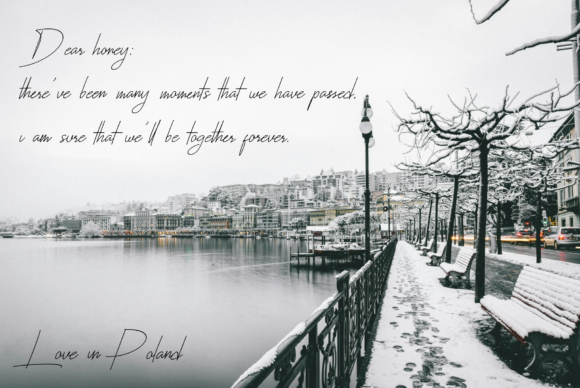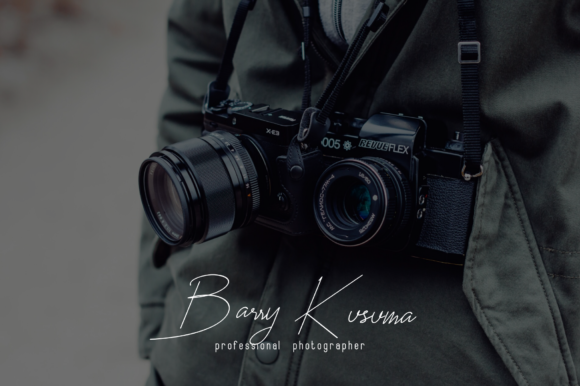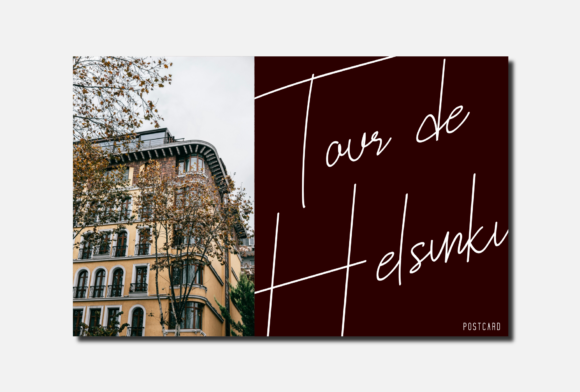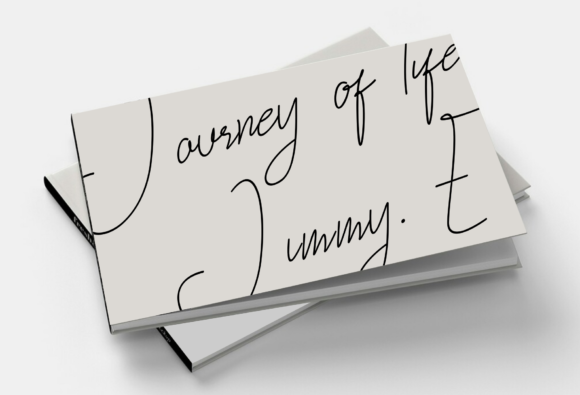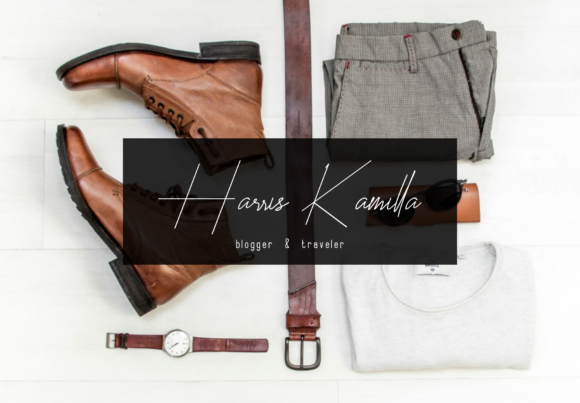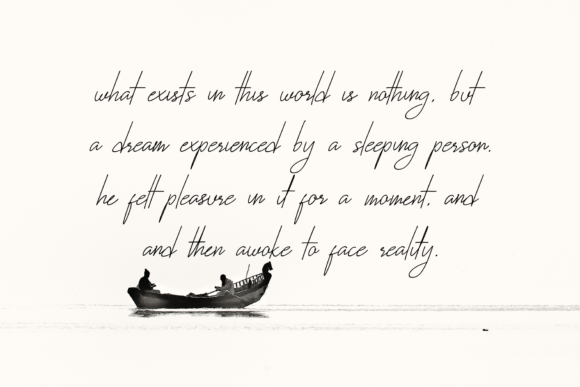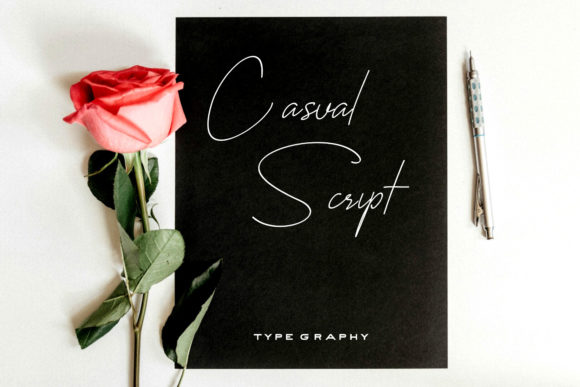
Casual Script Font: Adding a Touch of Romance to Your Designs
Are you looking for a font that can add a delicate and romantic touch to your designs? Look no further than the Casual Script Font. This beautiful, thin lettered handwritten font is perfect for a wide range of applications, from greeting cards to headlines, and is sure to make your project stand out.
What is Casual Script Font?
Casual Script Font is a versatile script font that features delicate and thin lettering. It has a handwritten feel that is both elegant and sophisticated, making it perfect for designers and crafters who want to add a touch of romance to their work. The font is highly legible, even at small sizes, making it ideal for use in a variety of projects.
Characteristics of Casual Script Font
Casual Script Font has several characteristics that make it a popular choice among designers and crafters. Some of its key features include:
- Delicate and thin lettering: The font features delicate and thin lettering that is both elegant and sophisticated.
- Handwritten feel: The font has a handwritten feel that gives it a personal and unique touch.
- Highly legible: The font is highly legible, even at small sizes, making it ideal for use in a variety of projects.
- Versatile: The font is versatile and can be used in a wide range of applications, from greeting cards to headlines.
Uses of Casual Script Font
Casual Script Font is a versatile font that can be used in a wide range of applications. Some of the most popular uses of the font include:
- Greeting cards: The font is perfect for use in greeting cards, adding a touch of romance and elegance to your designs.
- Headlines: The font is ideal for use in headlines, adding a touch of sophistication and elegance to your titles.
- Invitations: The font is perfect for use in invitations, adding a touch of romance and whimsy to your designs.
- Social media graphics: The font is ideal for use in social media graphics, adding a touch of elegance and sophistication to your posts.
Benefits of Using Casual Script Font
There are several benefits to using Casual Script Font in your designs. Some of the most significant advantages of the font include:
- Adds a touch of romance: The font adds a touch of romance and elegance to your designs, making it perfect for use in projects where you want to create a warm and inviting feel.
- Highly versatile: The font is highly versatile and can be used in a wide range of applications, from greeting cards to headlines.
- Easy to read: The font is highly legible, even at small sizes, making it easy to read and understand.
- Unique and personal: The font has a handwritten feel that gives it a unique and personal touch, making it perfect for use in projects where you want to stand out.
Tips for Using Casual Script Font
Here are a few tips for using Casual Script Font in your designs:
- Use it sparingly: While the font is beautiful, it can be overwhelming if used too much. Use it sparingly to add a touch of elegance and sophistication to your designs.
- Pair it with other fonts: The font pairs well with other fonts, so don’t be afraid to experiment with different combinations.
- Use it in the right context: The font is perfect for use in projects where you want to create a warm and inviting feel. Use it in the right context to get the most impact.
Casual Script Font is a beautiful and versatile font that can add a touch of romance and elegance to your designs. With its delicate and thin lettering, handwritten feel, and high legibility, it’s perfect for use in a wide range of applications, from greeting cards to headlines. Whether you’re a designer or crafter, Casual Script Font is a great choice for anyone looking to add a touch of sophistication and whimsy to their work.